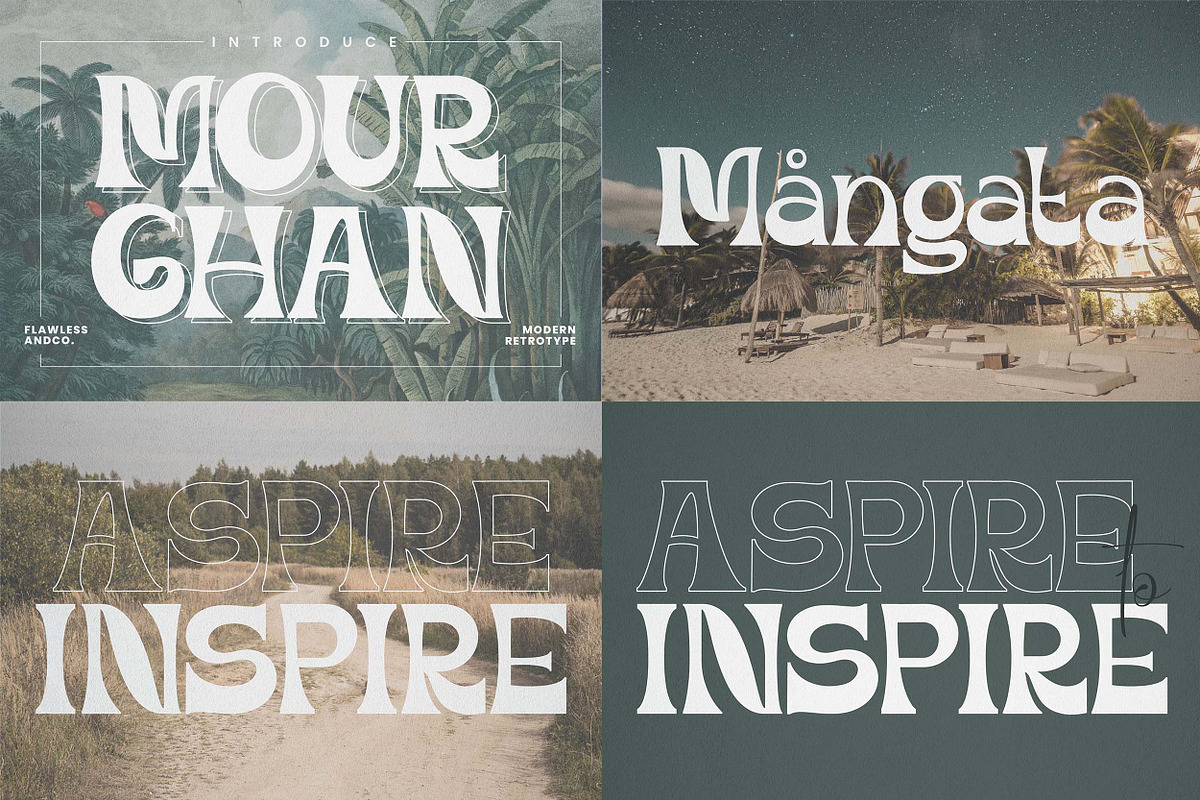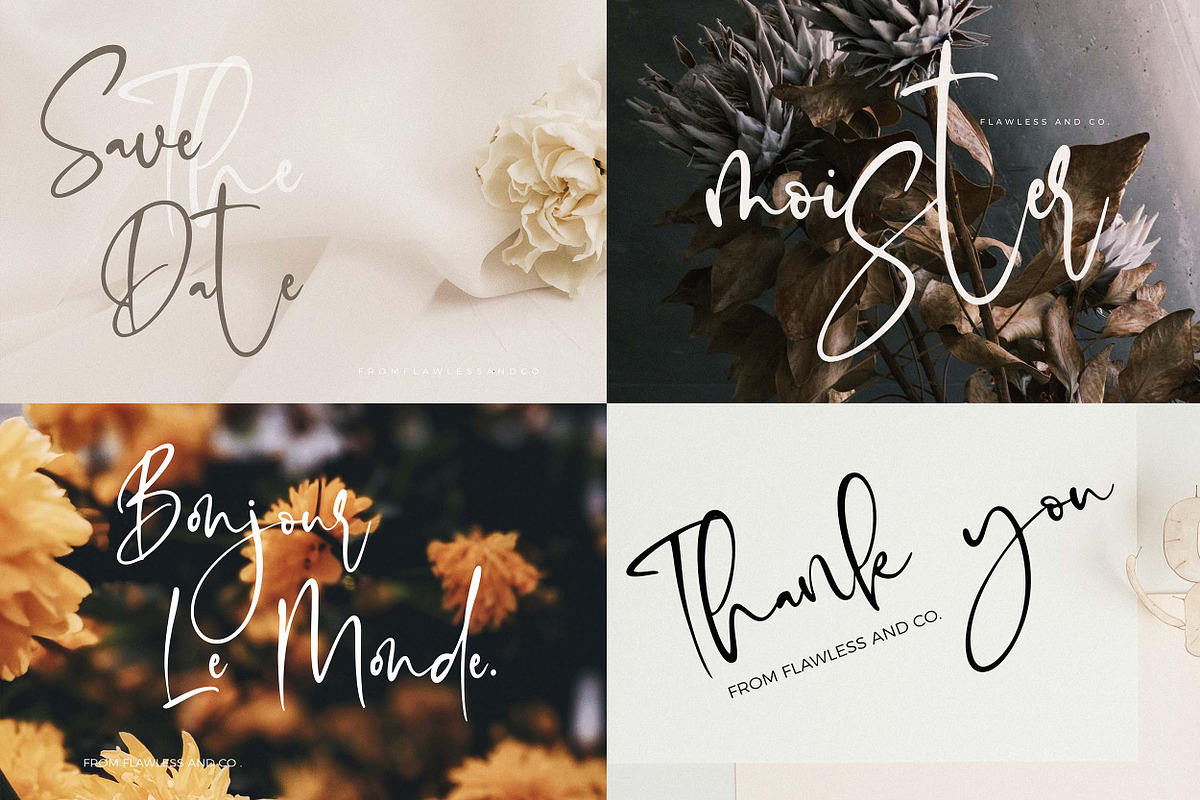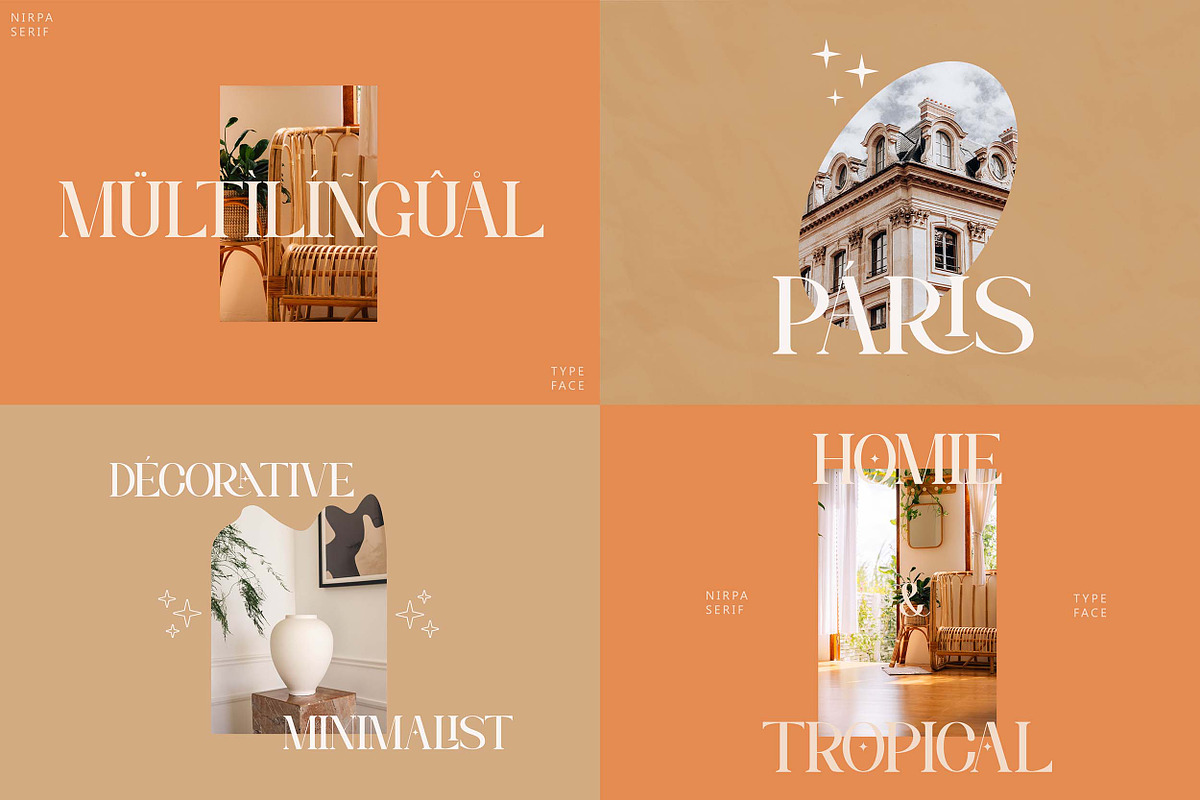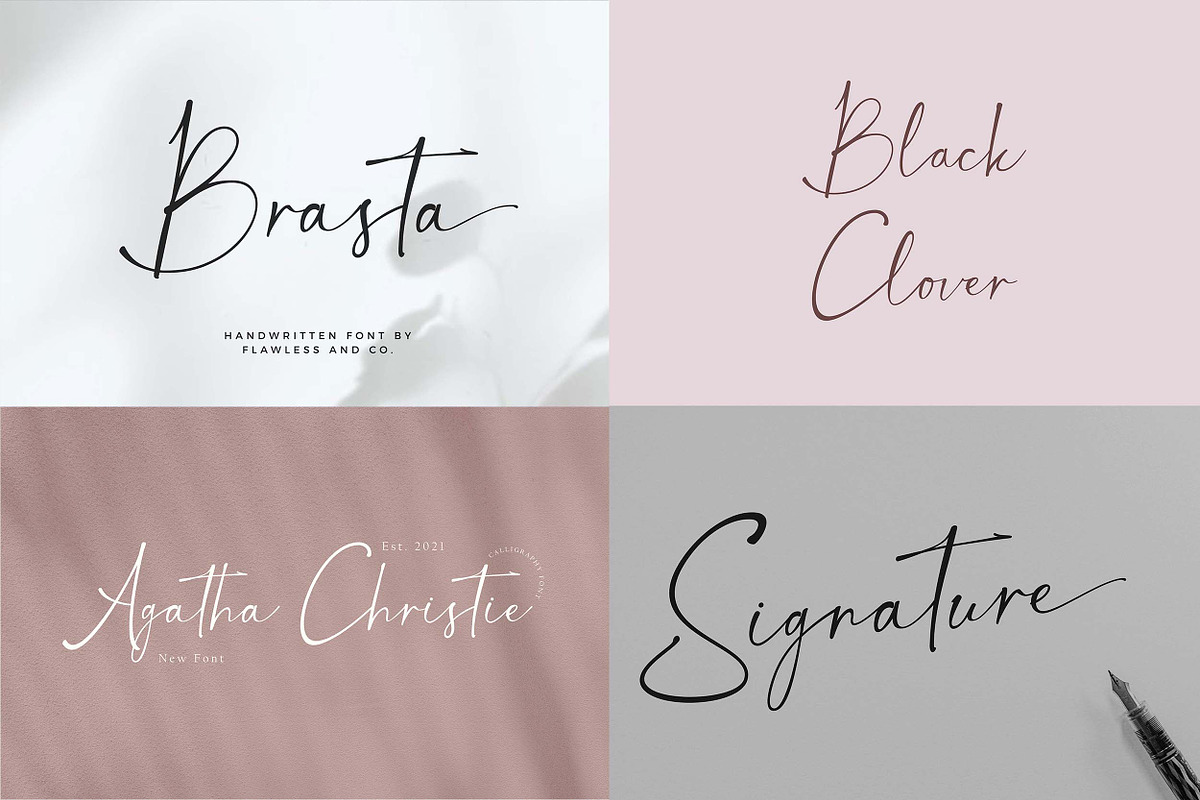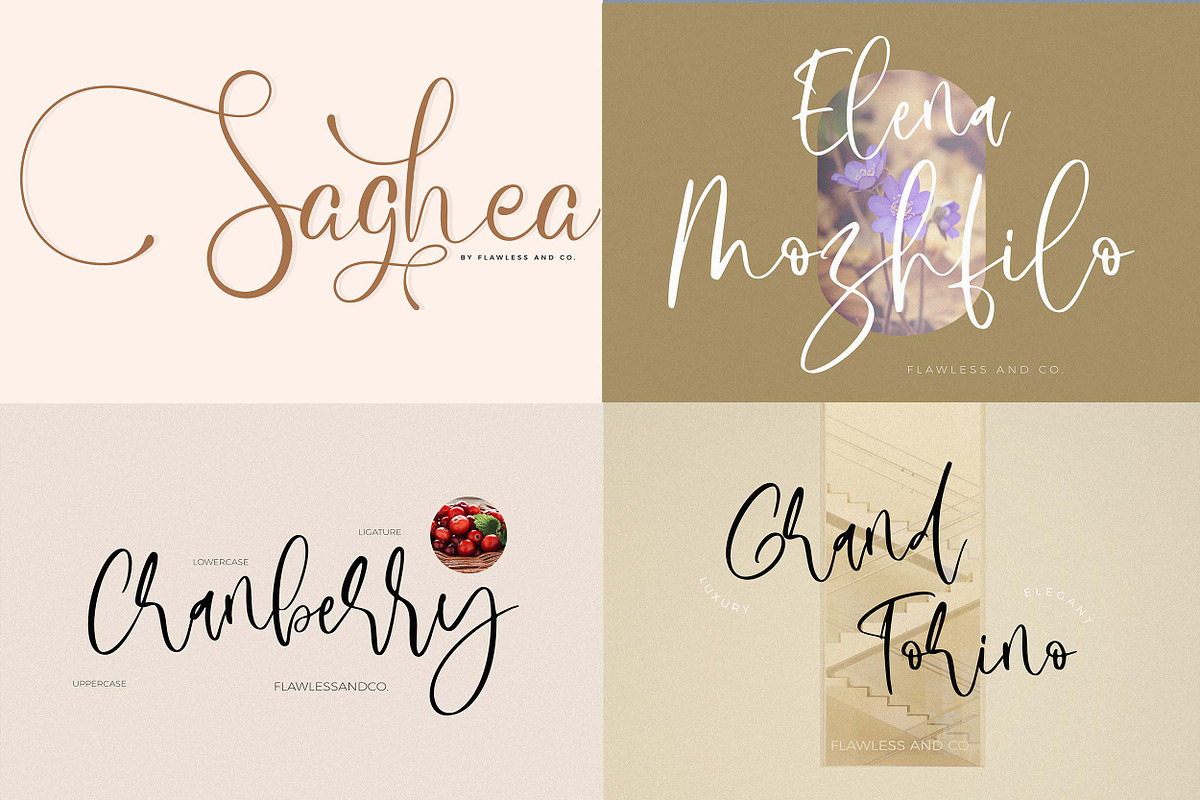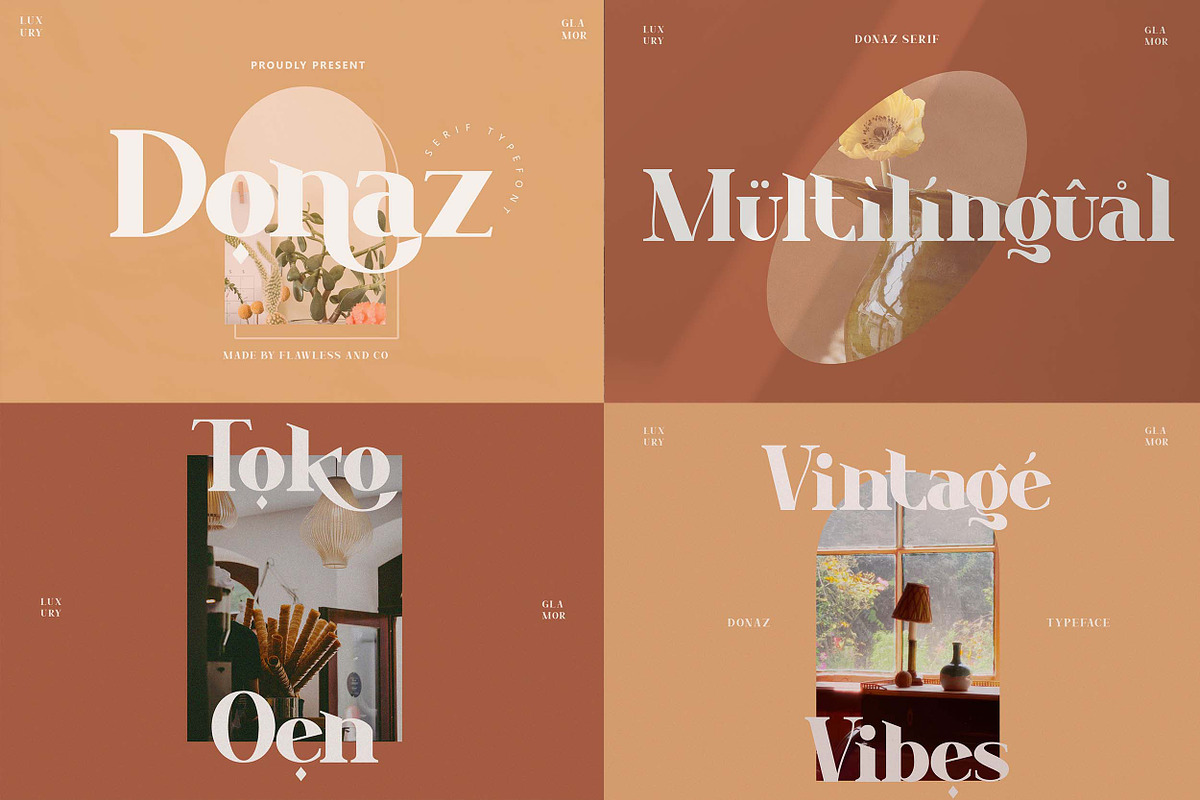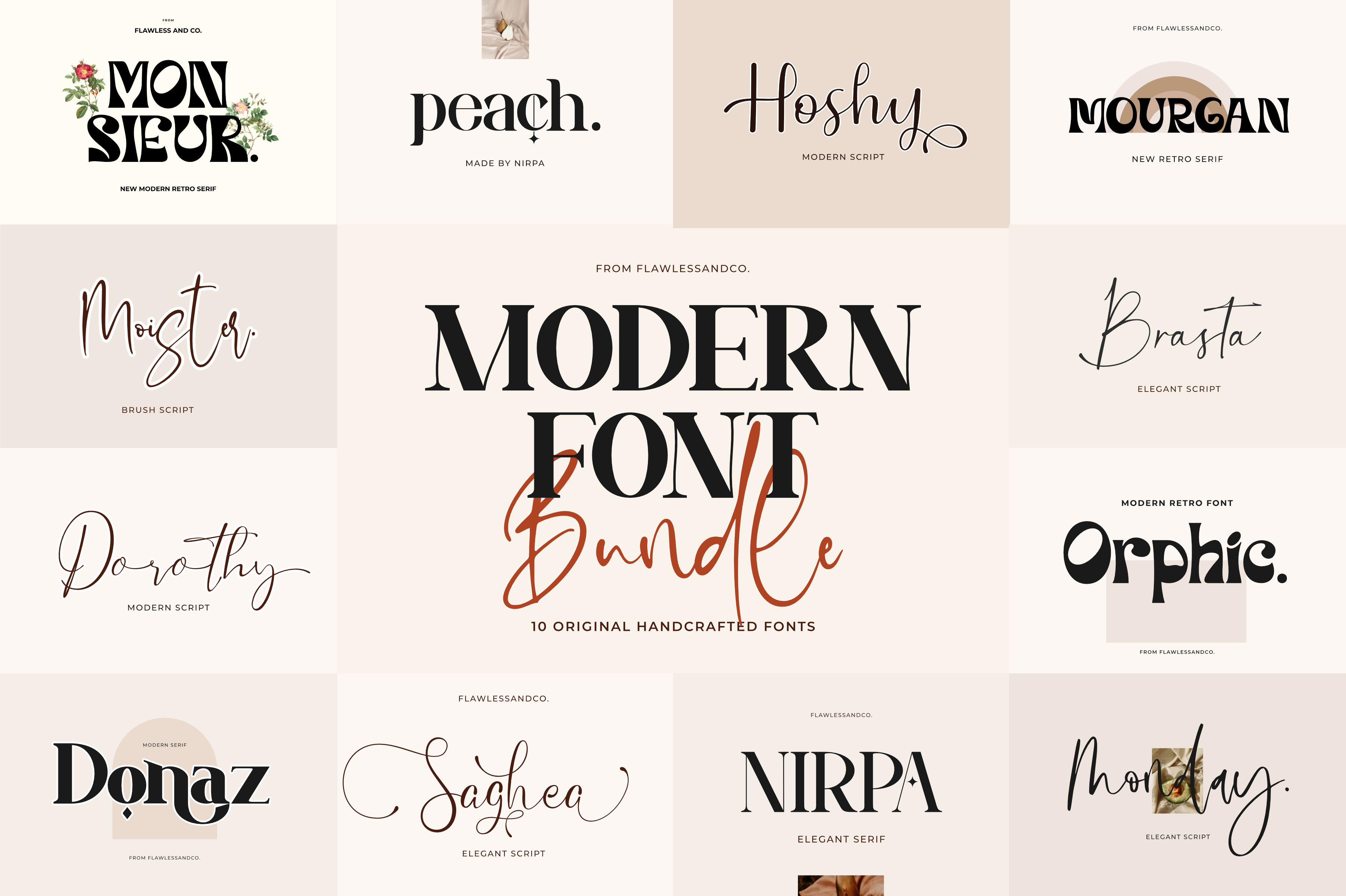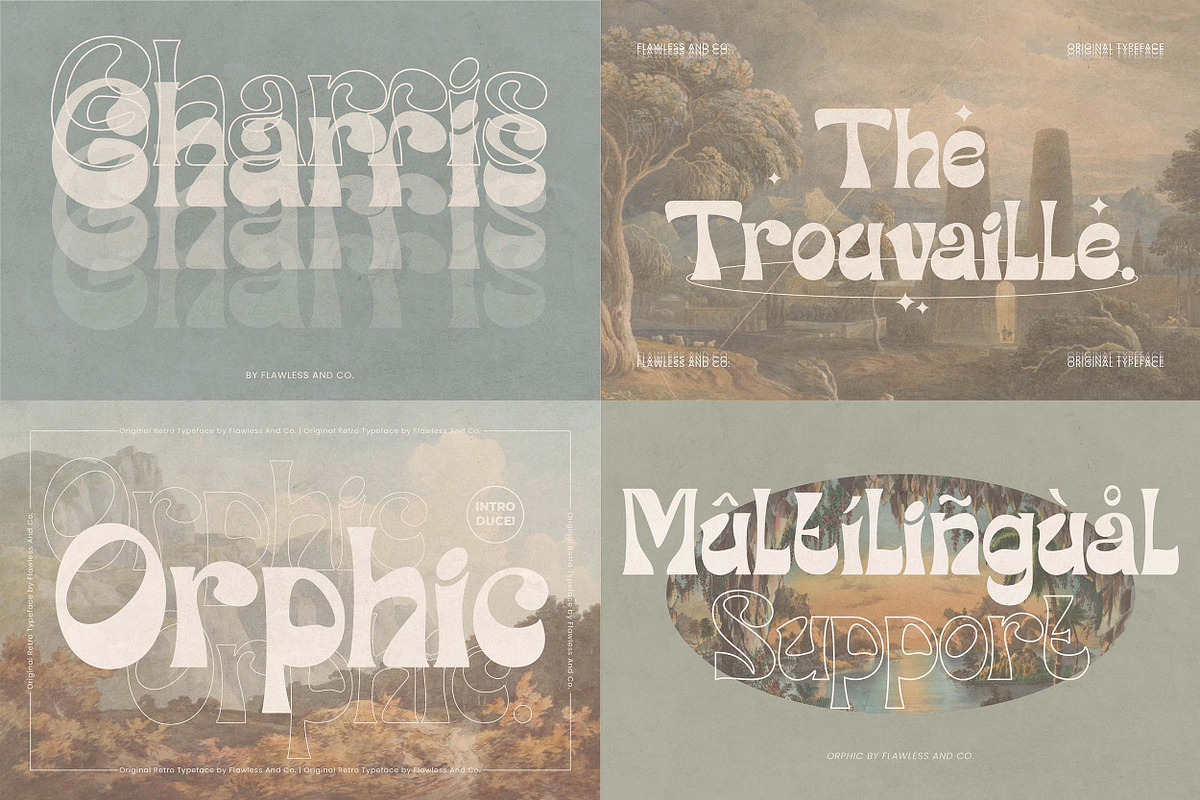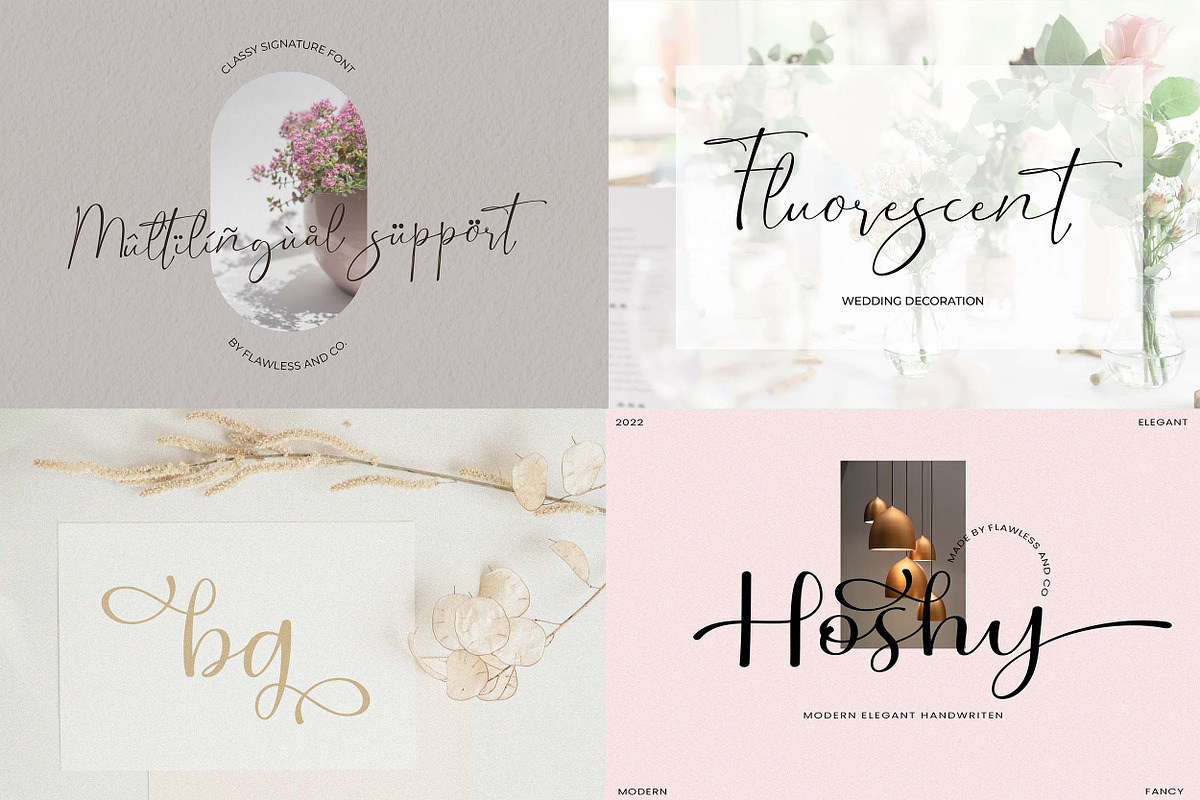
Modern Font Bundle
This bundle include 10 high quality script font,this style gives a feel of Girly, modern, Suitable for any graphic designs such as branding materials, t-shirt, print, business cards, logo, poster, t-shirt, photography, quotes .etc
- Mourghan (OTF,TTF)
- Donaz (OTF,TTF)
- Saghea (OTF,TTF)
- Orphic (OTF,TTF)
- Nirpa (OTF,TTF)
- Moister Script (OTF,TTF)
- Monday Script (OTF,TTF)
- Dorothy (OTF,TTF)
- Brasta (OTF,TTF)
- Hoshy (OTF,TTF)
Multilingual Uppercase alphabet A-Z Lowercase alphabet a-z Alternate Character Numbers 0-9 Some punctuation